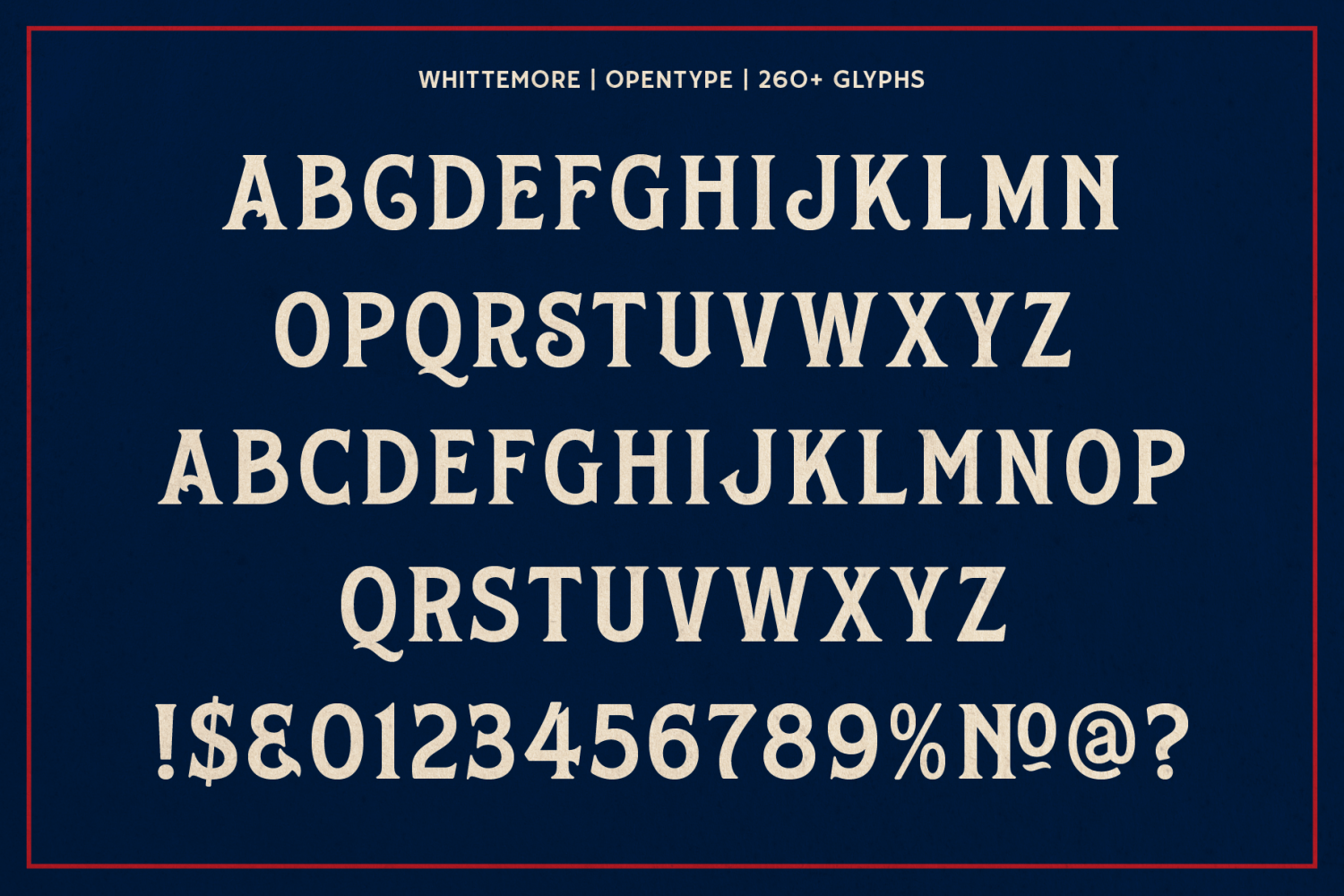
Whittemore is a vintage all caps typeface replicating the style of the Whittemore Brothers Shoe Polish advertising of the late 1800s and features two rounded serif fonts: regular and condensed. Whether recreating early Americana signage, packaging or…